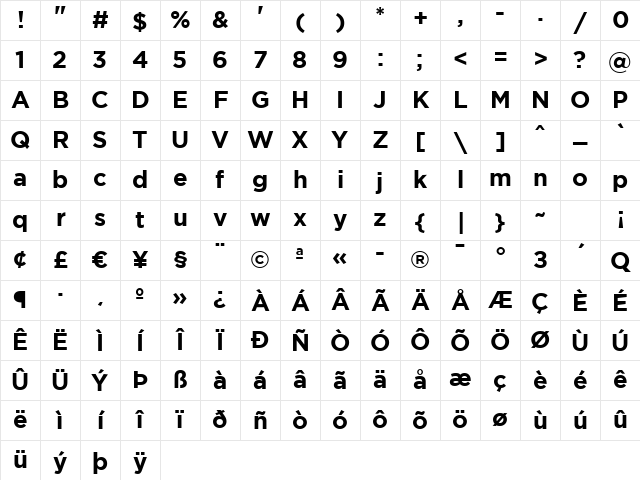
Bold Regular
Foundry: HTF Gotham Copr. The Hoefler Type Foundry, Inc
Bold Family
Bold Regular
Design Context for Bold
Bold is a composed and adaptable typeface that performs quietly and consistently across a wide range of design contexts. Its bold stroke weight gives it real presence on the page.